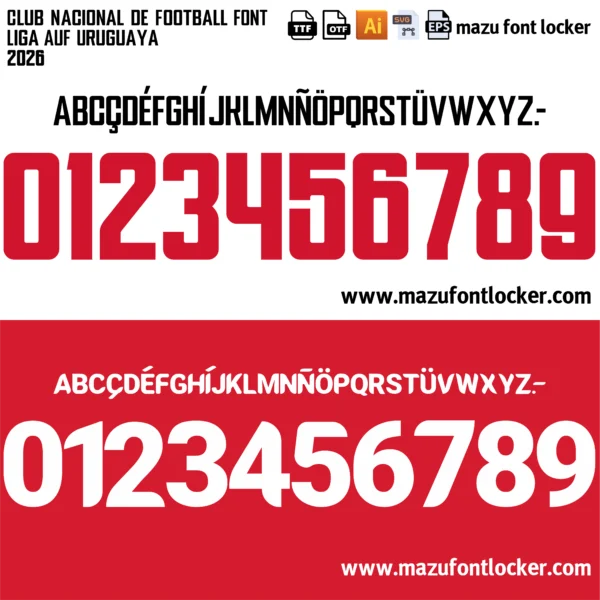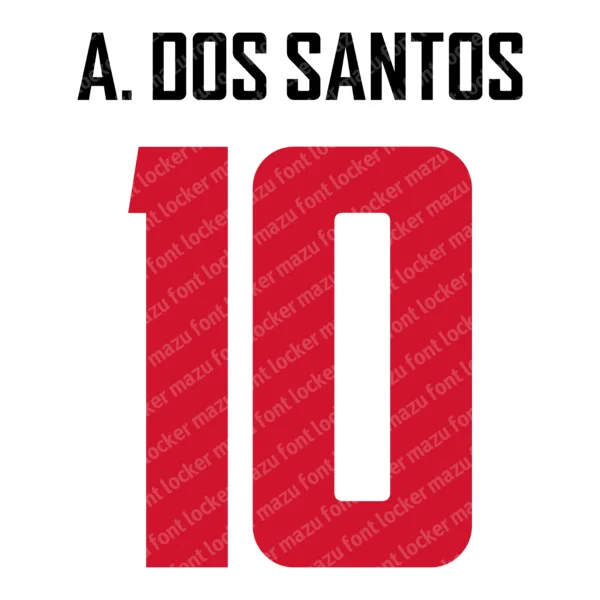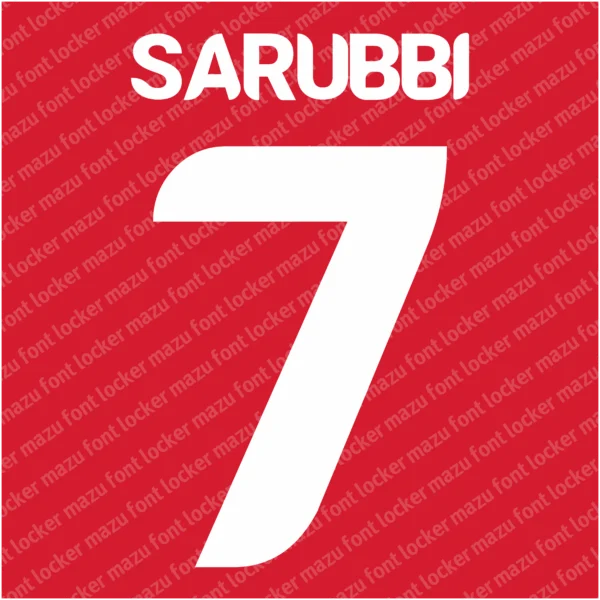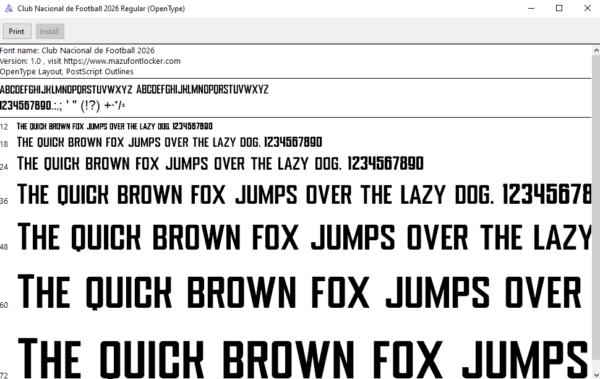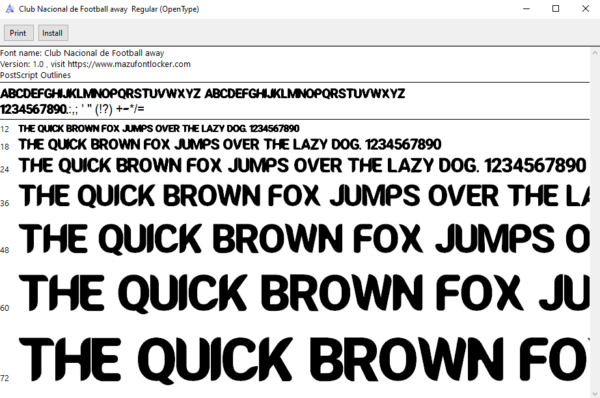
Club Nacional 2026 Font – Epic Bold Masterpiece
The Club Nacional 2026 Font accurately recreates the bold match-style lettering worn by Club Nacional de Football during the 2026 Uruguayan Primera División season. This font captures the strong and classic typography of the Tricolores’ official kit, perfect for authentic jersey mockups, fan merchandise, football graphics, and supporter designs.
Club Nacional 2026 Font – Authentic Uruguayan Club Typeface
The Club Nacional 2026 Font is a premium typeface that accurately recreates the official match lettering worn by Club Nacional de Football during the 2026 season. This high-quality font kit captures the bold, elegant, and classic typography that represents the Decano’s latest kit design.
Designed for professional designers and passionate Club Nacional fans, the Club Nacional 2026 Font delivers perfect authenticity for creating jersey mockups, fan merchandise, matchday posters, social media graphics, and much more. It blends beautifully with the club’s iconic white, red, and blue colors.
Why Choose Club Nacional 2026 Font
This font stands out because of its sharp details and strong historical identity. Every letter and number is crafted to match the exact style used on the players’ shirts in the 2026 season. Whether you are making realistic shirt templates or eye-catching football content, the Club Nacional 2026 Font gives your designs that authentic Uruguayan Primera División look.
The letterforms in the Club Nacional 2026 Font are tall, bold, and highly readable. The strokes have a strong and controlled weight that looks powerful on the back of jerseys while maintaining excellent clarity and elegance.
The numerals use bold curves and firm edges, giving them a confident and premium appearance. This design ensures great legibility whether used in large print formats, digital mockups, or video content.
• Full uppercase A–Z and numbers 0–9 in authentic Club Nacional 2026 style
• Special Club Nacional logo glyph for accurate shirt number detailing
• Create highly realistic Uruguayan league jersey mockups with accurate lettering
• Design stunning matchday posters, score graphics, and squad announcements
• Produce custom Club Nacional merchandise with a professional football aesthetic
• Includes the exact logo glyph placement used under player numbers
Club Nacional in the 2026 Season